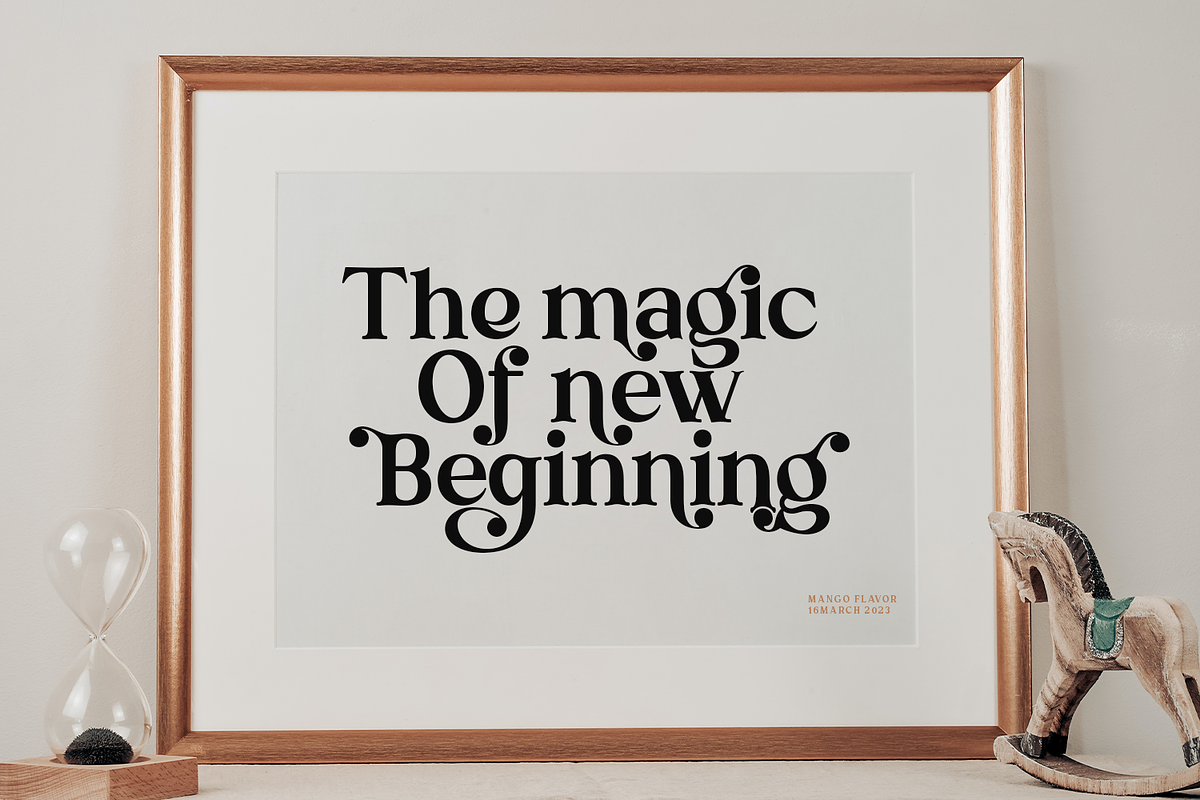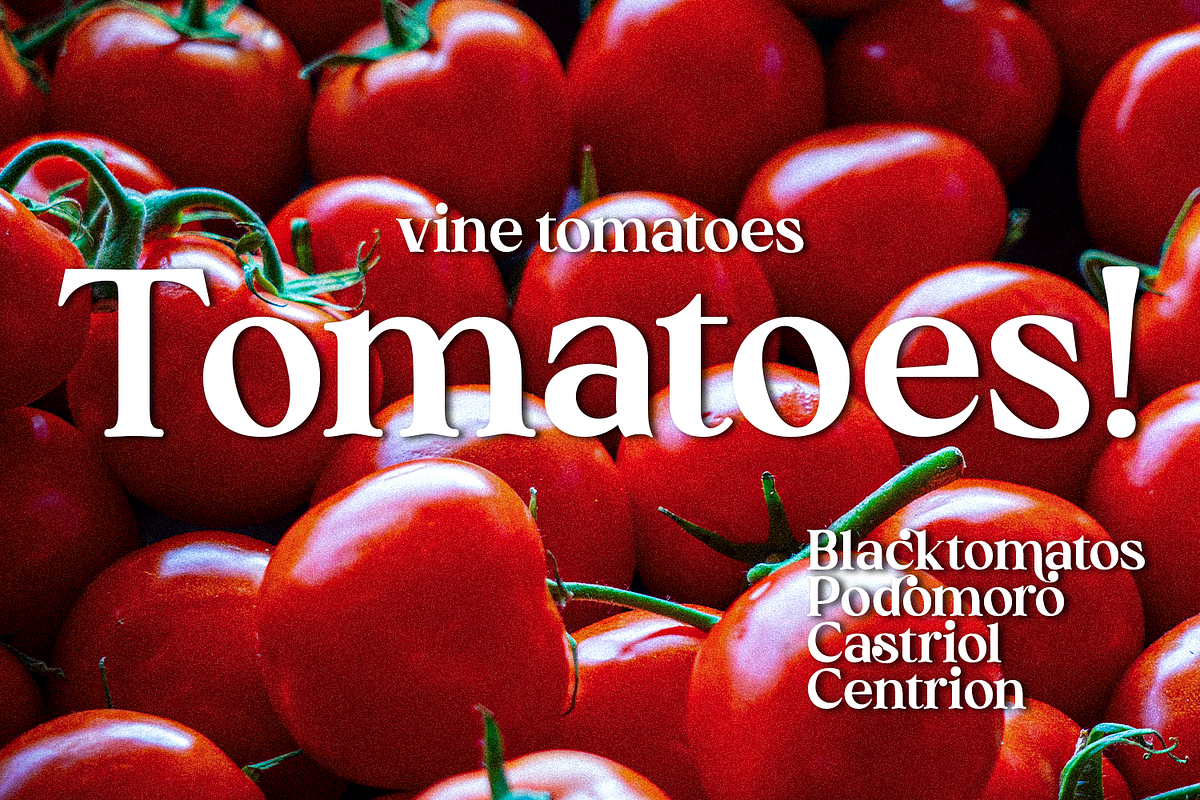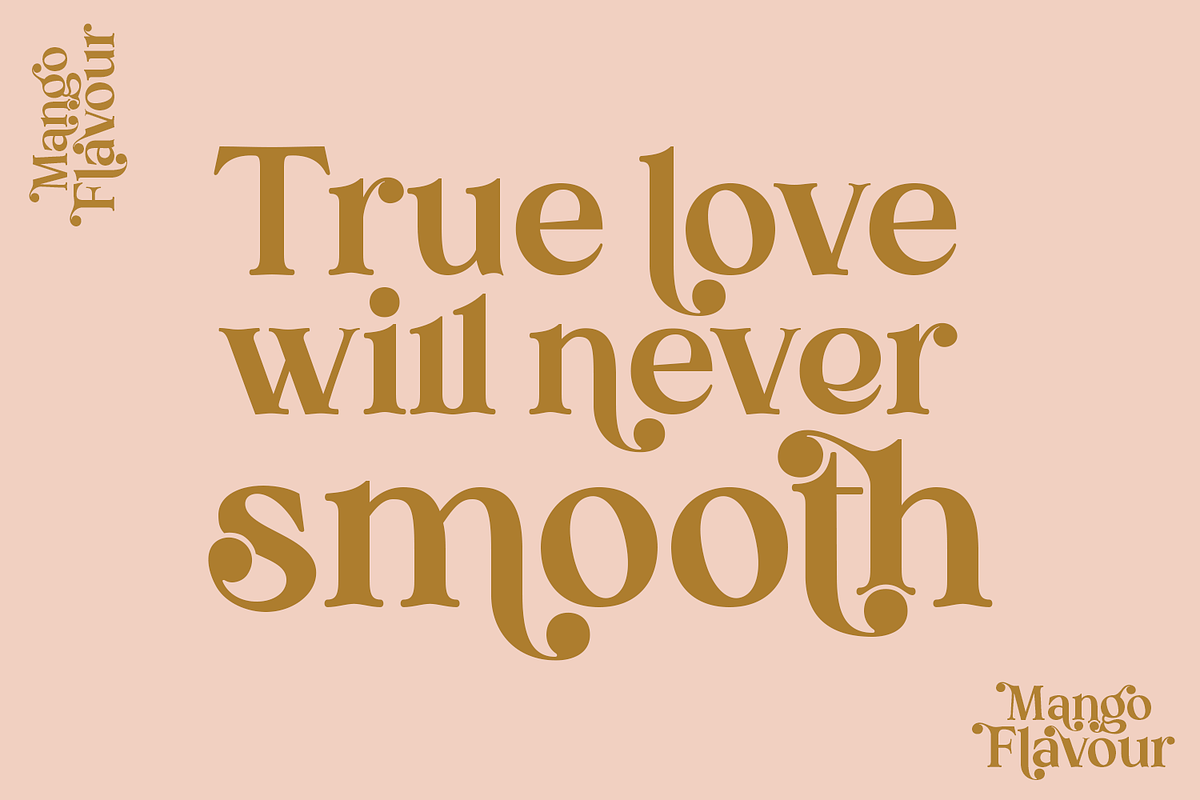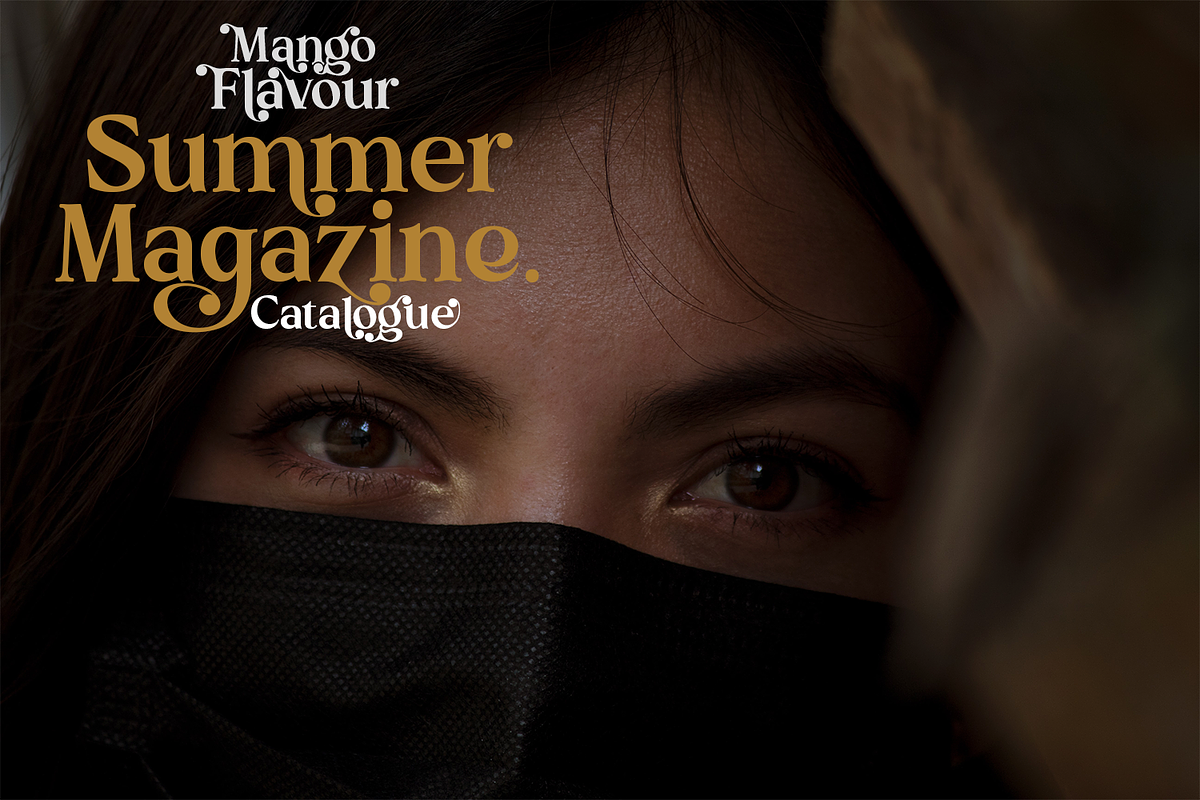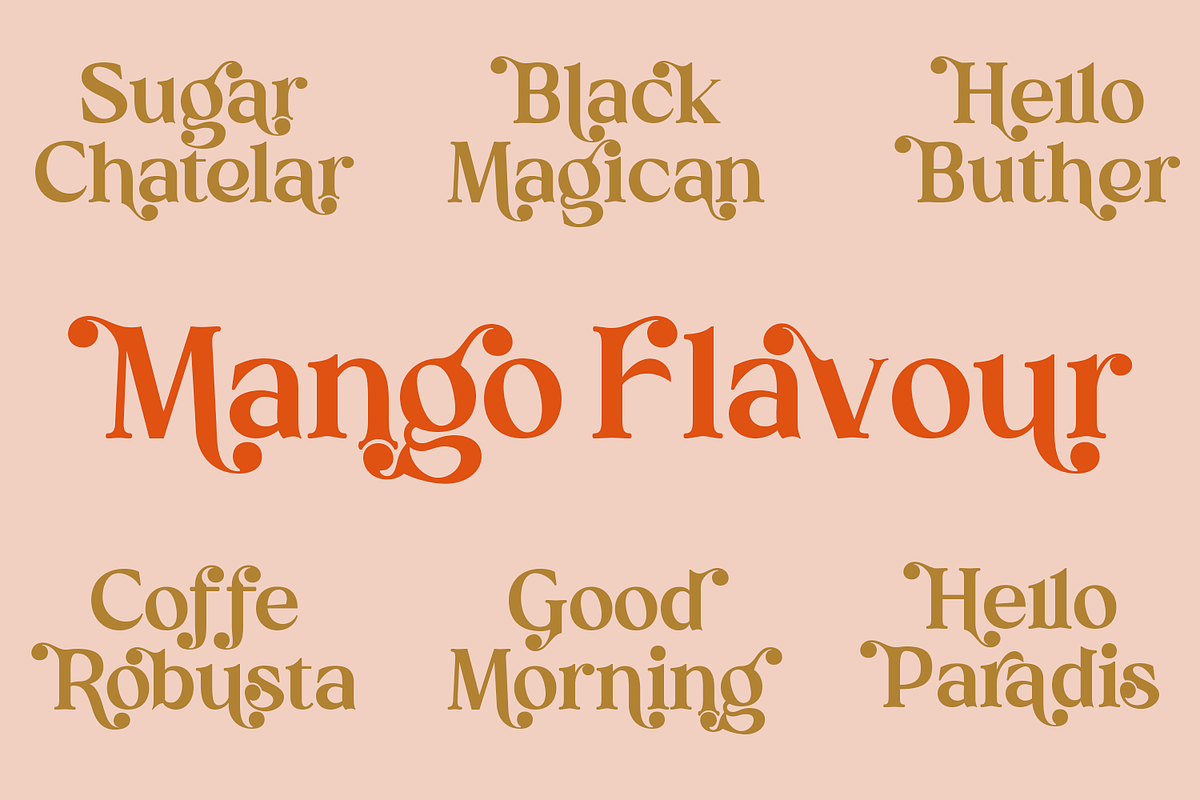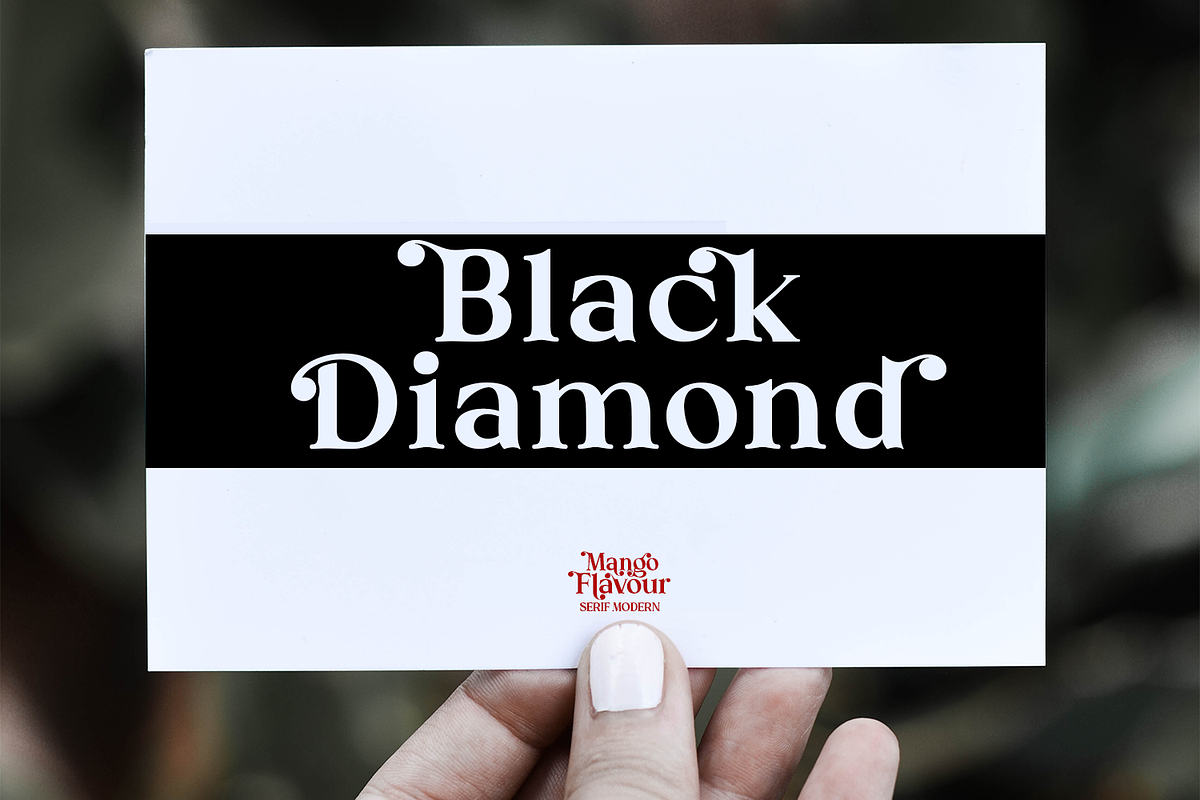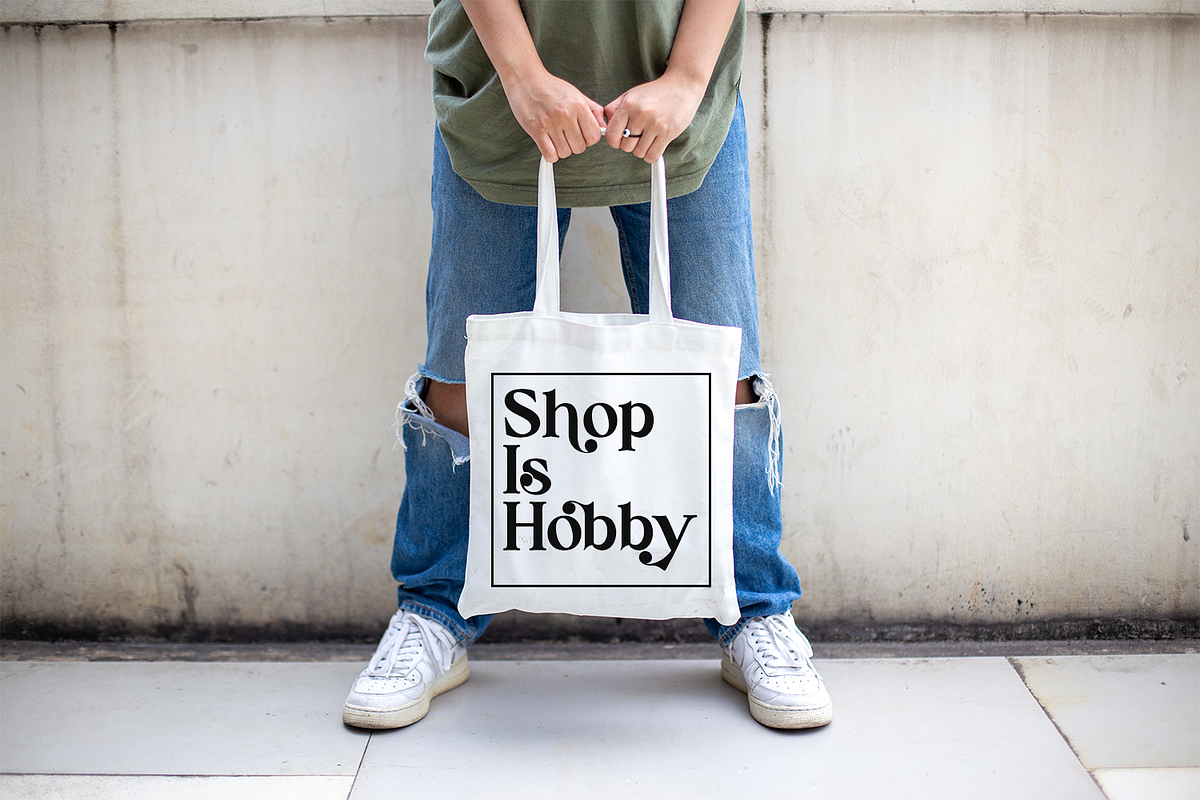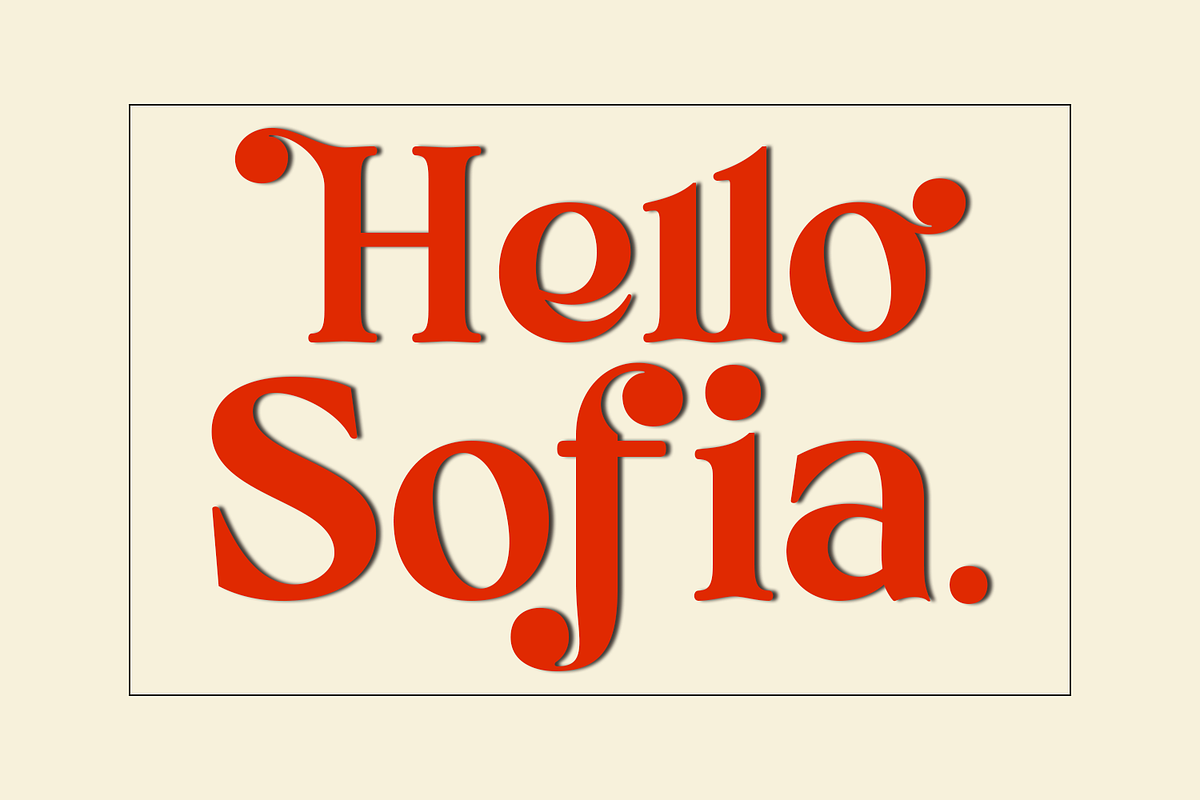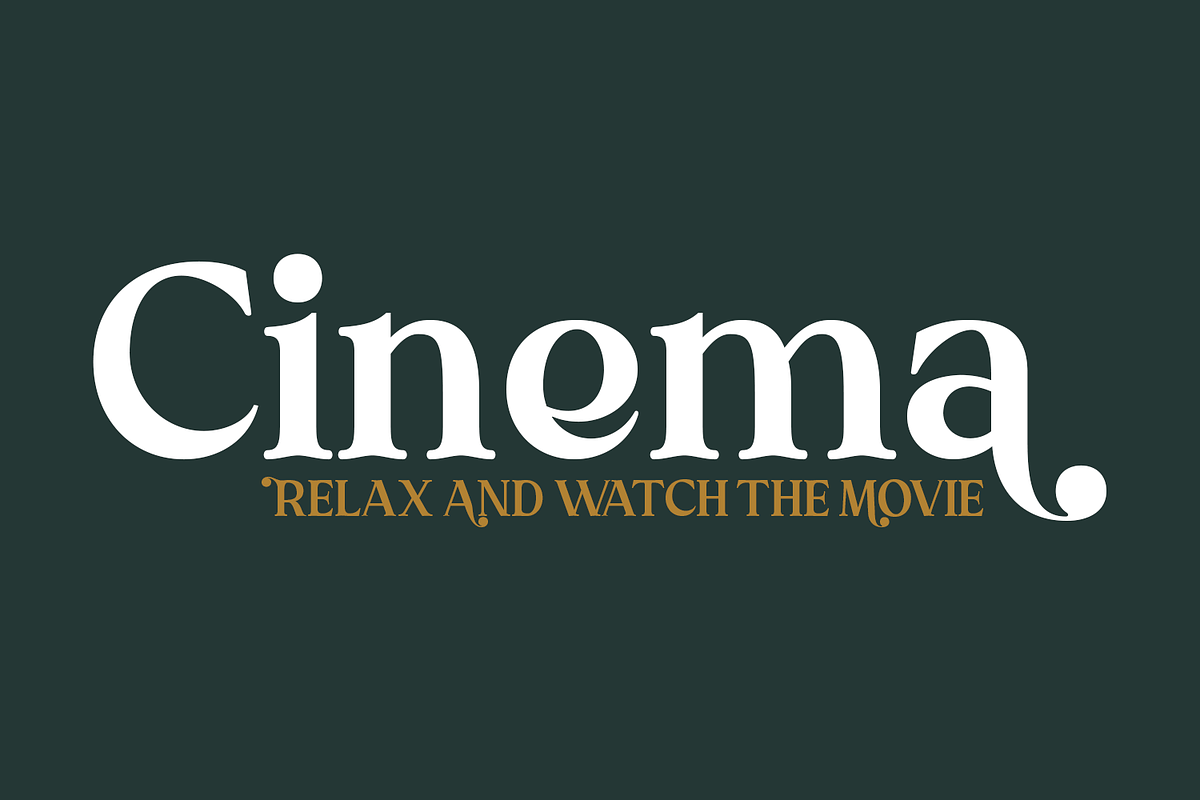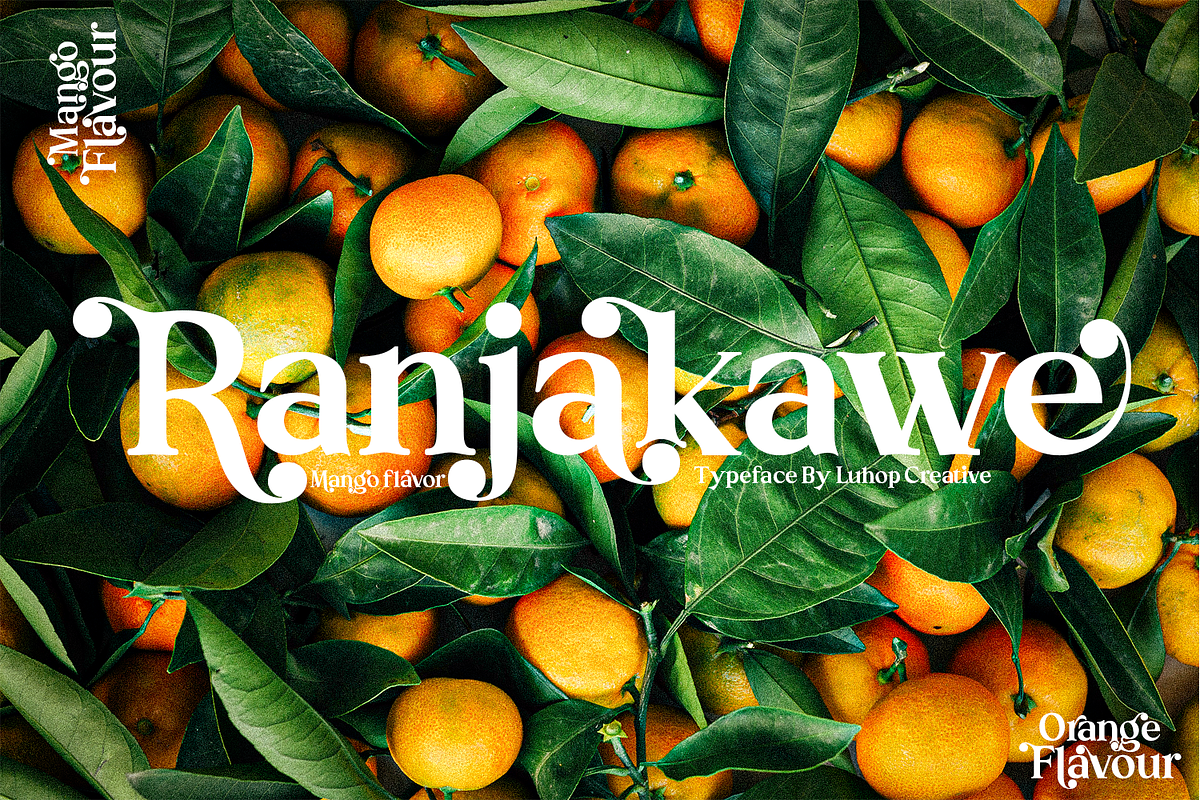
Madeline Forhes - Display Serif
Madeline Forhes is a stylish and modern serif font that’s perfect for bringing a touch of sophistication to your designs. Its clean lines and contemporary letterforms create a timeless yet fresh look that’s perfect for editorial design, branding, and any project that requires a touch of elegance.